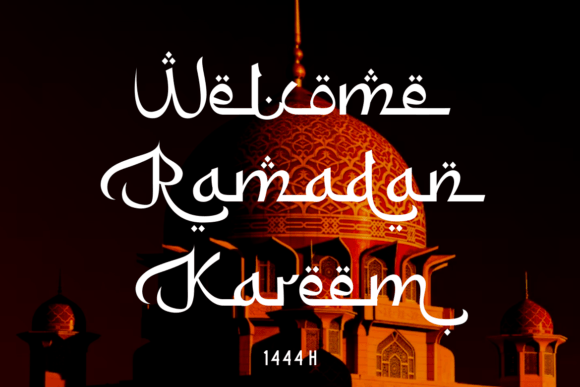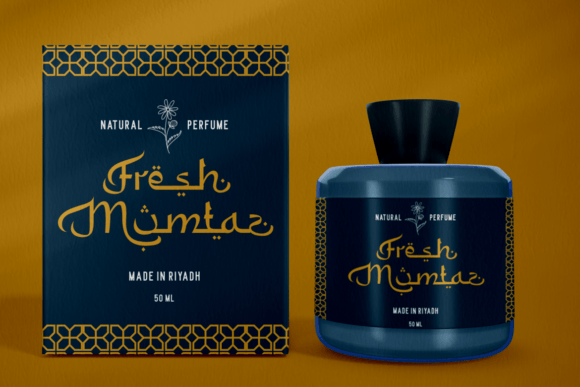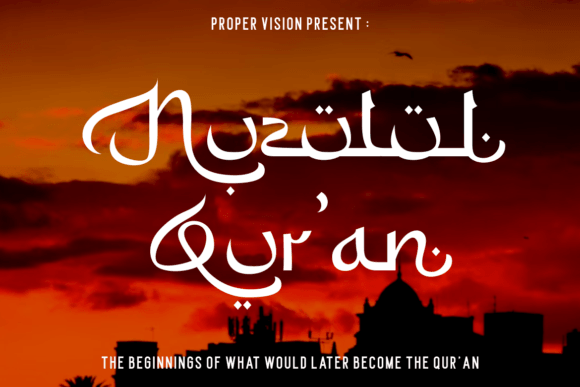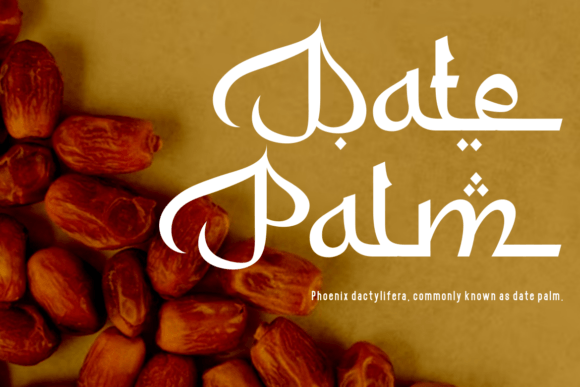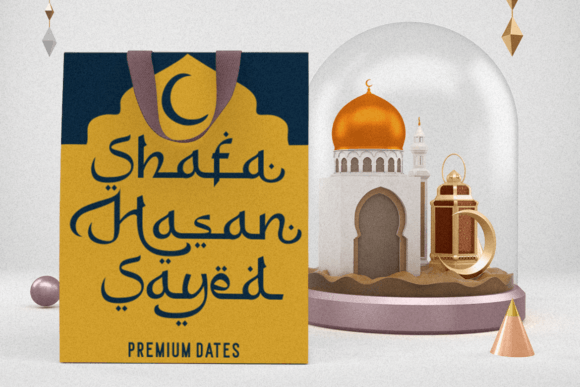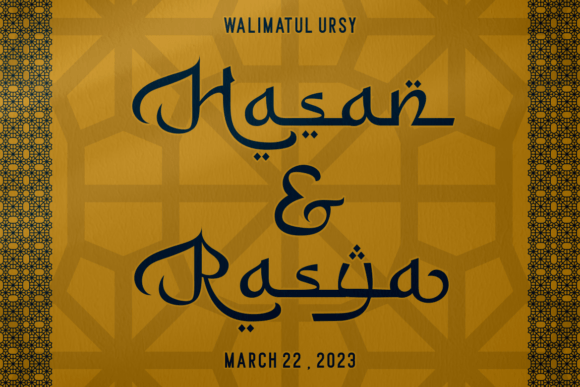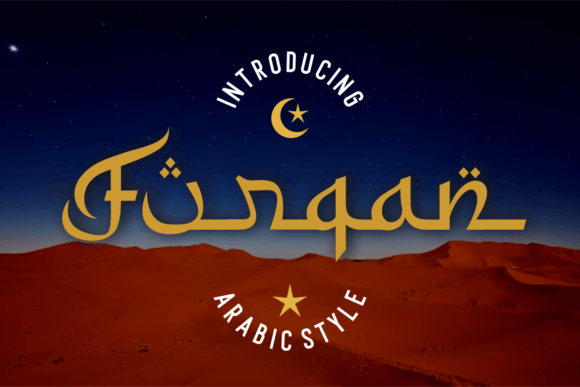
Discover the Beauty of Arabic Calligraphy with Furqan Font
Are you a designer or crafter looking for a unique and authentic Arabic font to elevate your designs? Look no further than Furqan Font, a stunning Arabic typeface that beautifully encapsulates the essence of traditional Arabic calligraphy. With its distinctive style, intricate details, and modern touch, Furqan is the perfect choice for a wide range of design purposes.
The Essence of Arabic Calligraphy
Arabic calligraphy is a revered art form that has been perfected over centuries. Its intricate and flowing script has been used to adorn mosques, manuscripts, and other sacred texts. Furqan Font pays homage to this rich cultural heritage, with each character meticulously crafted to resemble traditional Arabic letters. The font’s distinctive style is characterized by intricate dots that adorn each character, adding an air of authenticity and cultural richness to your designs.
A Versatile Font for Various Design Purposes
Furqan Font is an incredibly versatile typeface that can be used for a wide range of design purposes. Whether you’re creating logos and branding materials, designing posters and product packaging, or crafting promotional items, titles, greeting cards, and invitations, Furqan seamlessly blends the timeless beauty of Arabic script with a modern touch. Its elegance and heritage make it an excellent choice for designers and crafters who want to add a touch of cultural sophistication to their designs.
Timeless Beauty Meets Modern Touch
Furqan Font’s unique blend of traditional and modern elements makes it a standout in the world of typography. The font’s intricate dots and delicate lines add an artistic and charming dimension to your typography, while its clean and modern aesthetic ensures that your designs look fresh and contemporary. With Furqan, you can create visually stunning designs that are both elegant and eye-catching.
Design Possibilities with Furqan
The design possibilities with Furqan Font are endless. Here are just a few ideas to get you started:
• Create a visually stunning logo that showcases your brand’s personality and style.
• Design captivating posters that grab attention and convey your message.
• Craft invitations for special occasions, such as weddings, parties, and corporate events.
• Develop branding materials that reflect your brand’s values and mission.
• Design product packaging that stands out on store shelves and communicates your brand’s story.
Why Choose Furqan Font?
So why choose Furqan Font for your design projects? Here are just a few reasons:
• Authenticity: Furqan Font is a genuine representation of Arabic calligraphy, with intricate details and traditional elements.
• Versatility: Furqan can be used for a wide range of design purposes, from logos and branding materials to posters and invitations.
• Elegance: Furqan’s unique blend of traditional and modern elements makes it an elegant and sophisticated choice for designers and crafters.
• Cultural richness: Furqan Font is a celebration of Arabic culture and heritage, making it an excellent choice for designers who want to add a touch of cultural sophistication to their designs.
In conclusion, Furqan Font is a stunning Arabic typeface that beautifully encapsulates the essence of traditional Arabic calligraphy. With its distinctive style, intricate details, and modern touch, Furqan is the perfect choice for designers and crafters who want to add a touch of elegance and heritage to their designs. Whether you’re creating logos, posters, invitations, or branding materials, Furqan Font is an excellent choice for any design project.